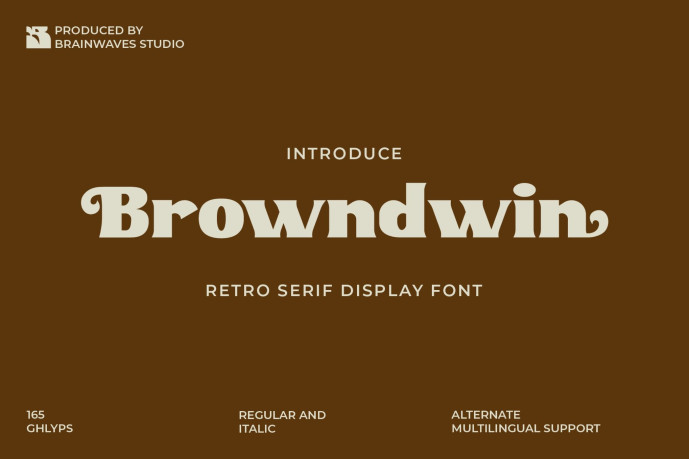
Browndwin Serif Font
Browndwin Serif Font – Retro Aesthetic: Perfect for projects that need a touch of classic charm. Playful Alternates: Unique alternate characters for both uppercase and lowercase, adding personality to your designs. Multilingual Support: Ideal for global projects, ensuring your message resonates everywhere. Full Character Set: Includes letters, numerals, and symbols for endless creative possibilities.